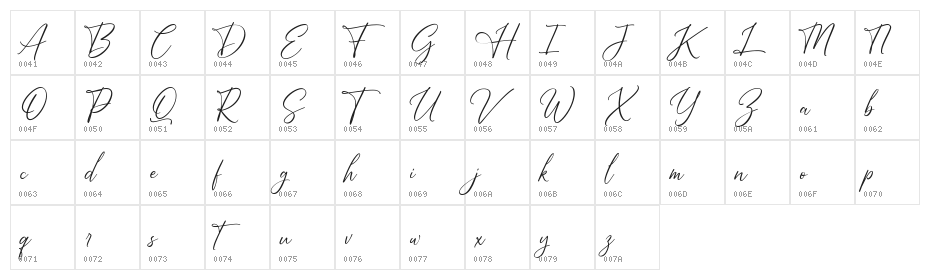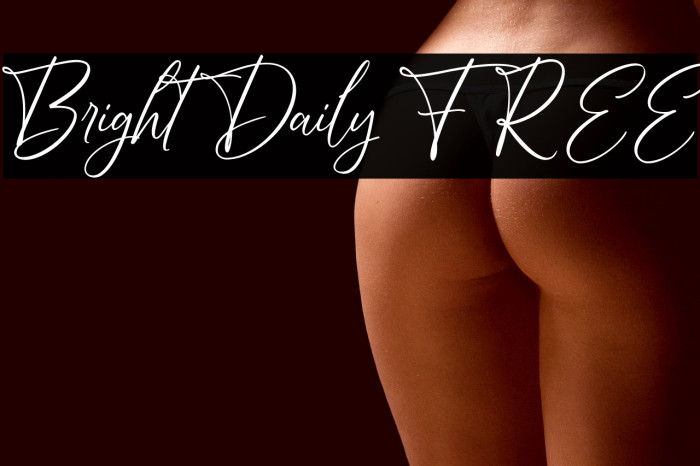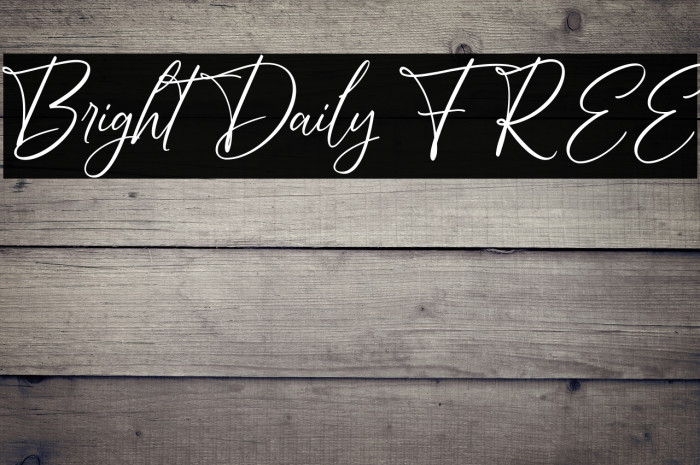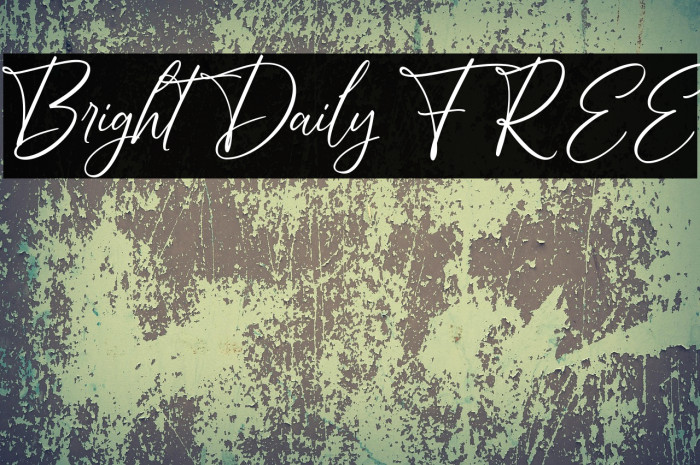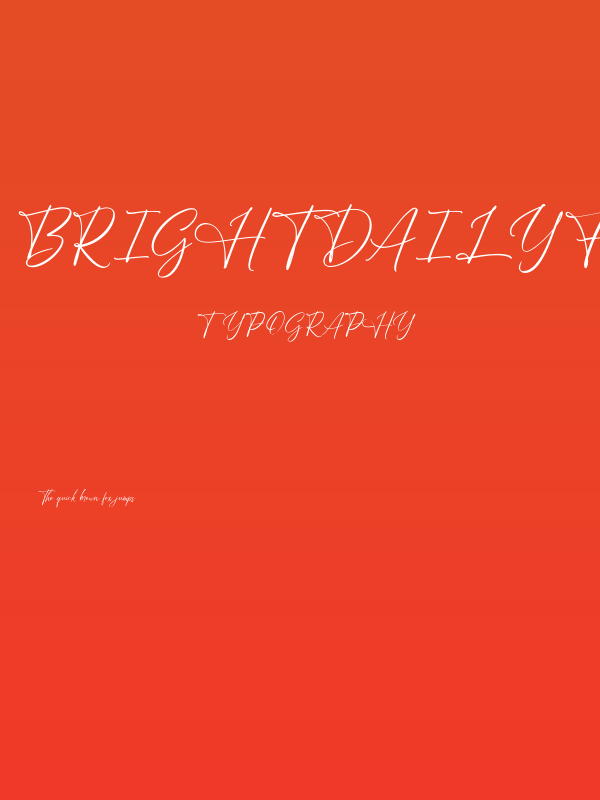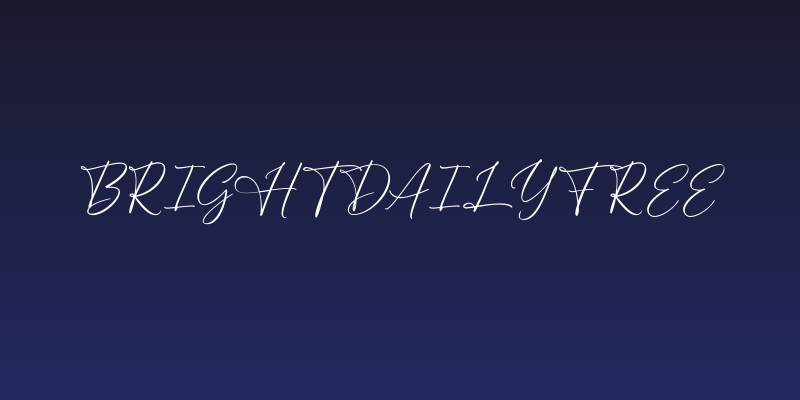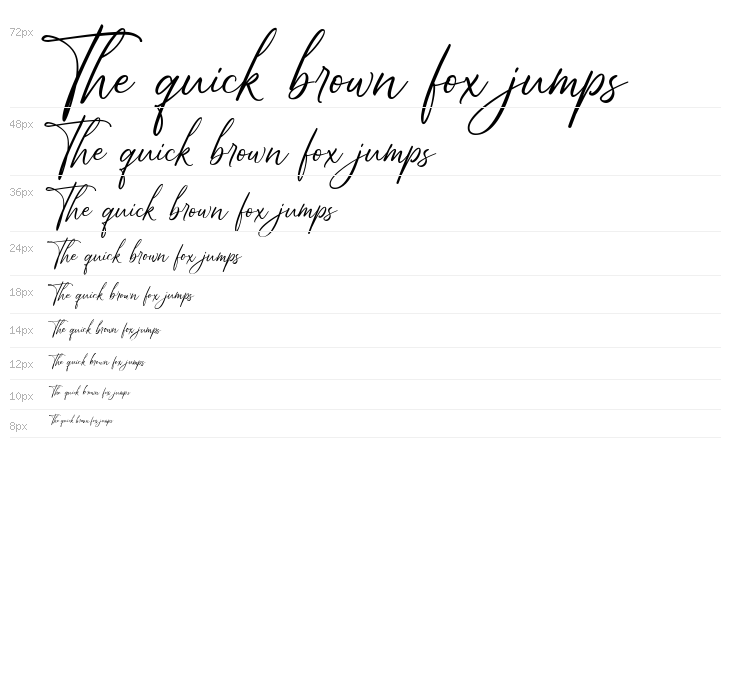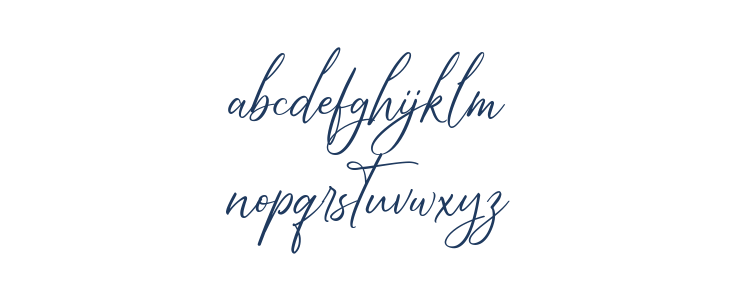
Bright Daily FREE Font
Bright Daily FREE Description
This elegant script font features a flowing, cursive style with graceful, sweeping curves and delicate lines. The uppercase letters are tall and slender, exuding a sense of sophistication and formality. The lowercase letters maintain a consistent flow, with some characters extending below the baseline, adding to the font's dynamic and lively appearance. The overall design is reminiscent of traditional calligraphy, making it suitable for projects that require a personal, handwritten touch. The font's thin strokes and high contrast between thick and thin lines enhance its readability while maintaining an artistic flair.
| Overall Style | Elegant, Calligraphic |
| Use Case | Invitations, Branding, Decorative text |
| Proposed Projects | Ideal for wedding invitations, elegant branding, personal stationery, and decorative quotes. |